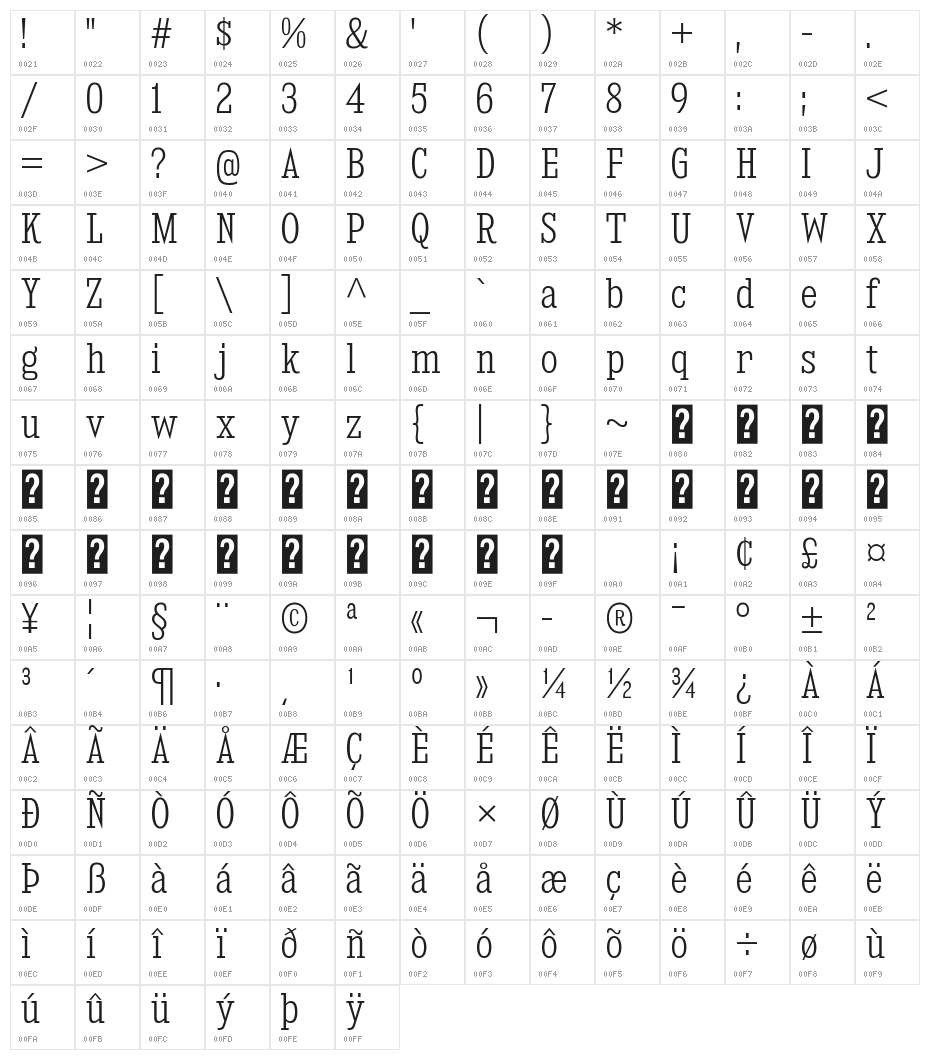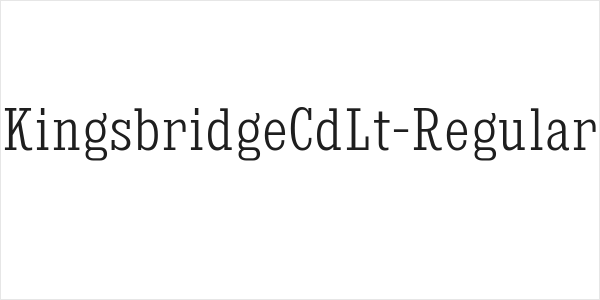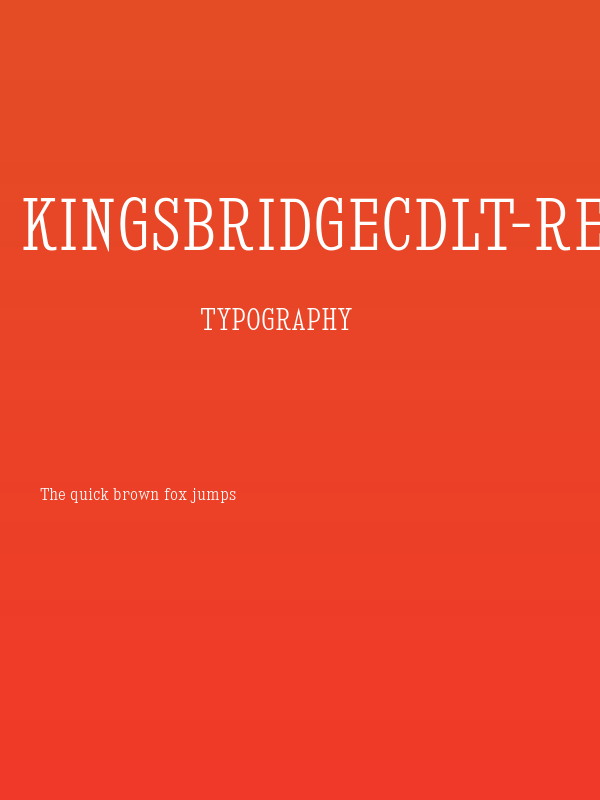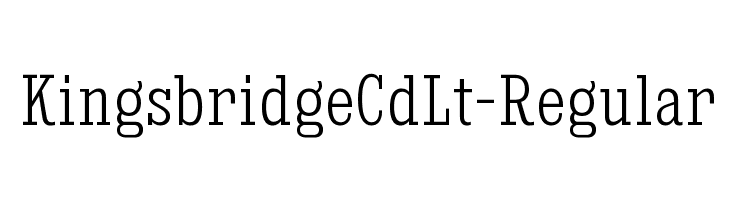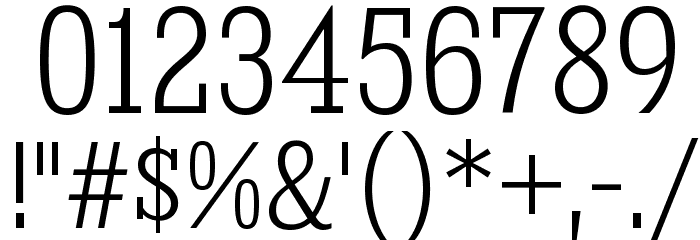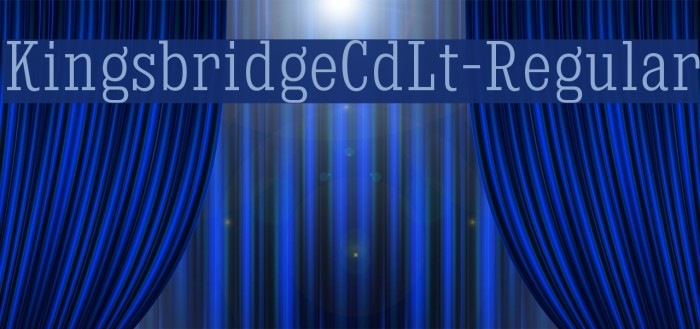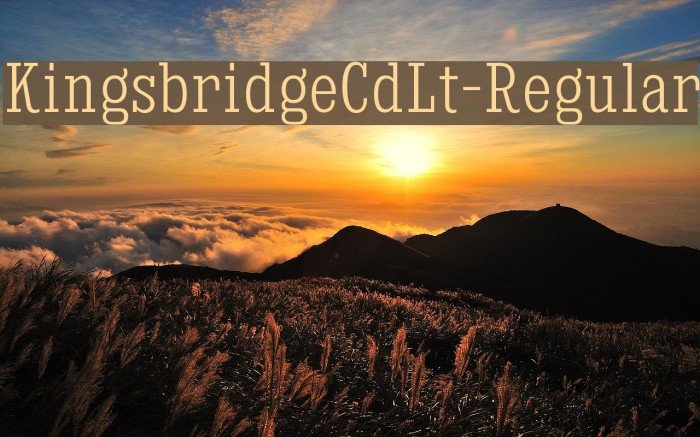
KingsbridgeCdLt-Regular Font
✎ Serif
KingsbridgeCdLt-Regular Description
This font exhibits a classic serif style with a refined and elegant appearance. The characters are well-proportioned, featuring distinct serifs that add a touch of sophistication. The uppercase letters are tall and commanding, while the lowercase letters maintain a balanced and readable form. The numerals are clear and consistent, making them suitable for various applications. Special characters are thoughtfully designed, ensuring versatility in usage. The overall design is timeless, making it ideal for projects that require a touch of tradition and formality.
| Width | Condensed |
| Overall Style | Classic |
| Use Case | Headlines, Body text, Logos |
| Proposed Projects | Ideal for editorial design, book covers, formal invitations, and branding that requires a traditional and sophisticated look. |